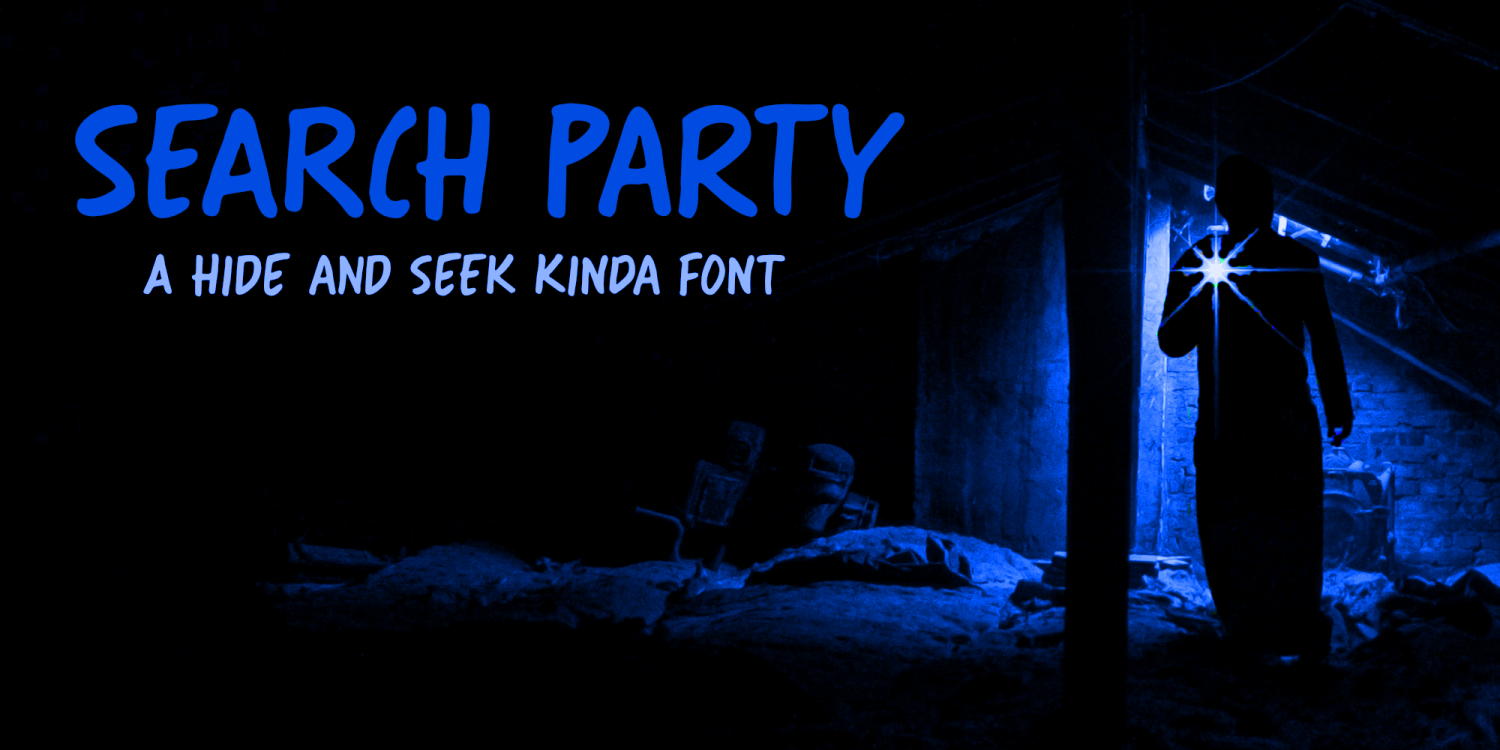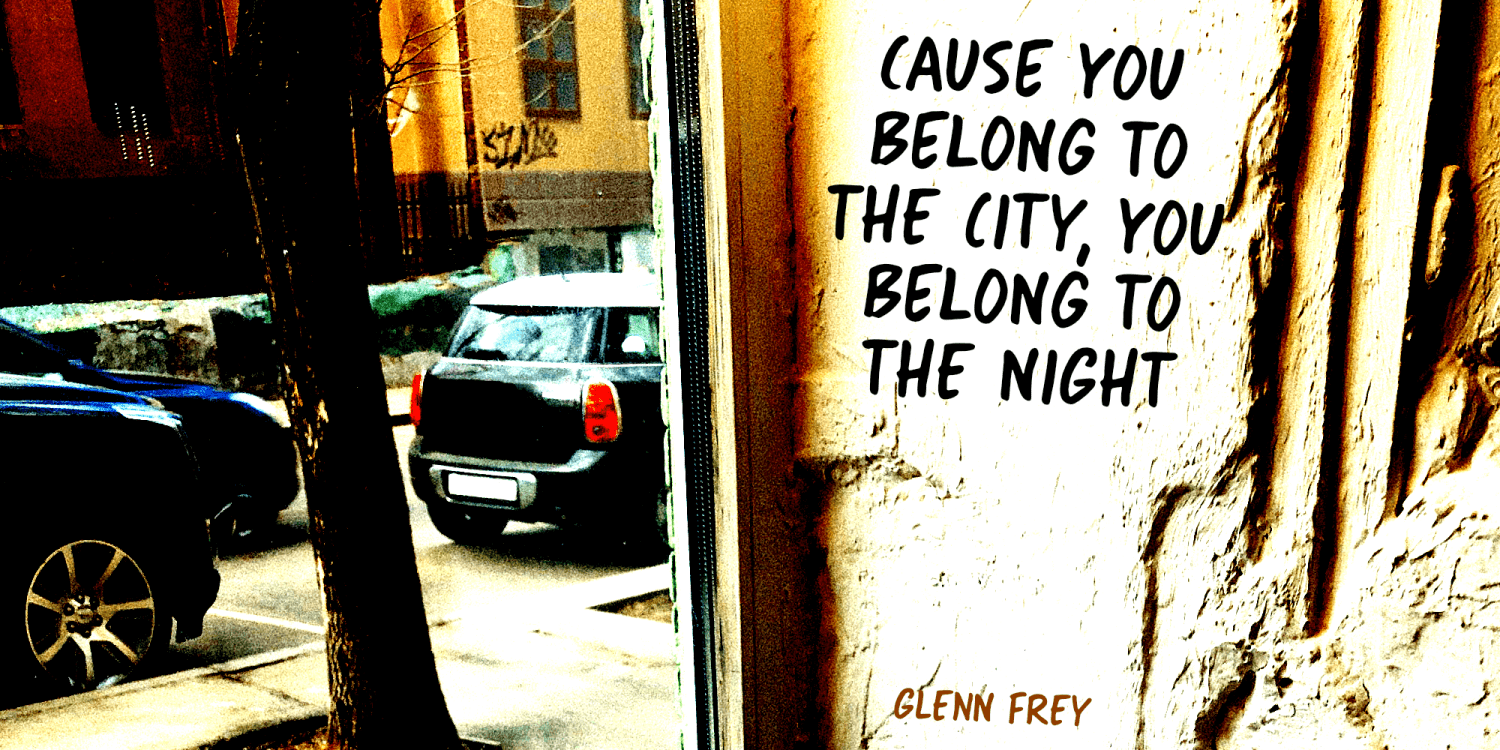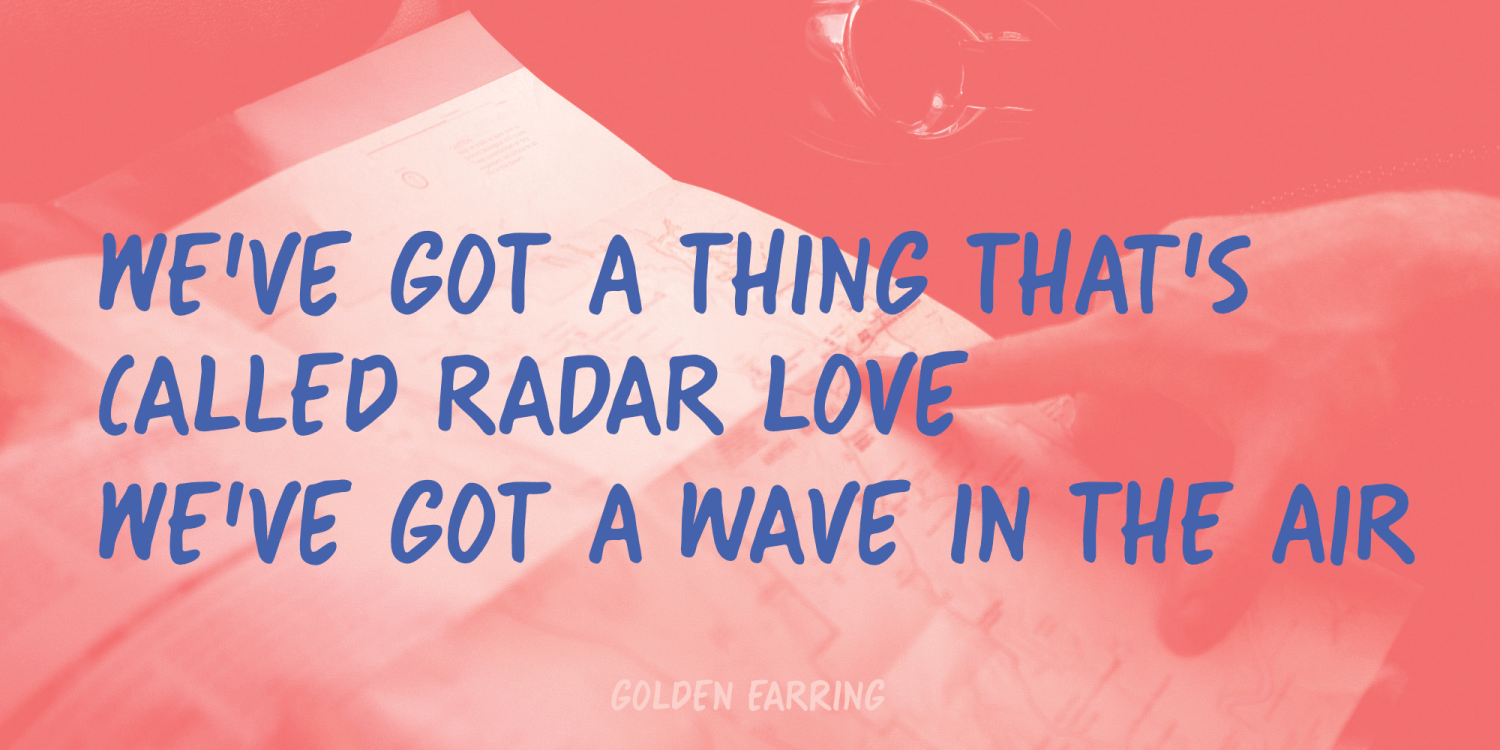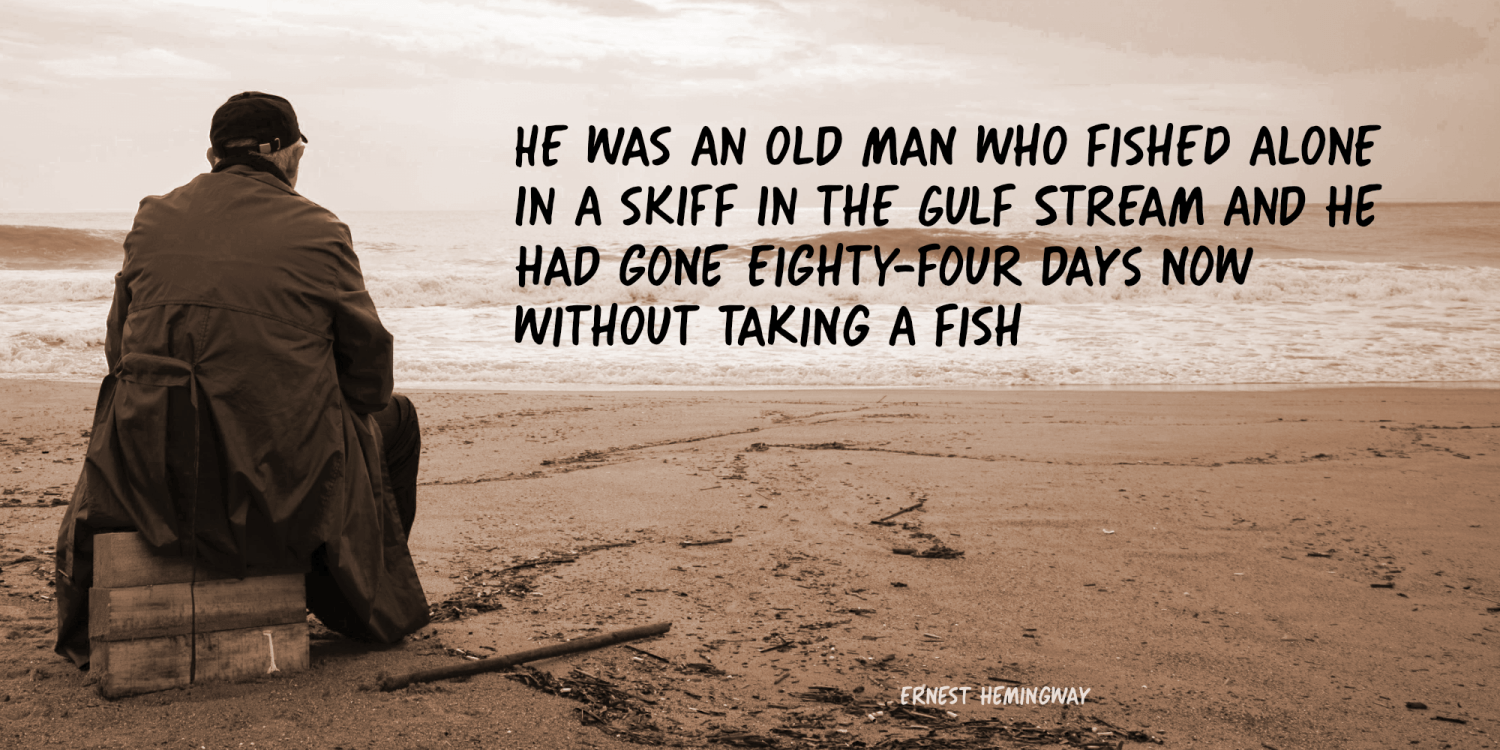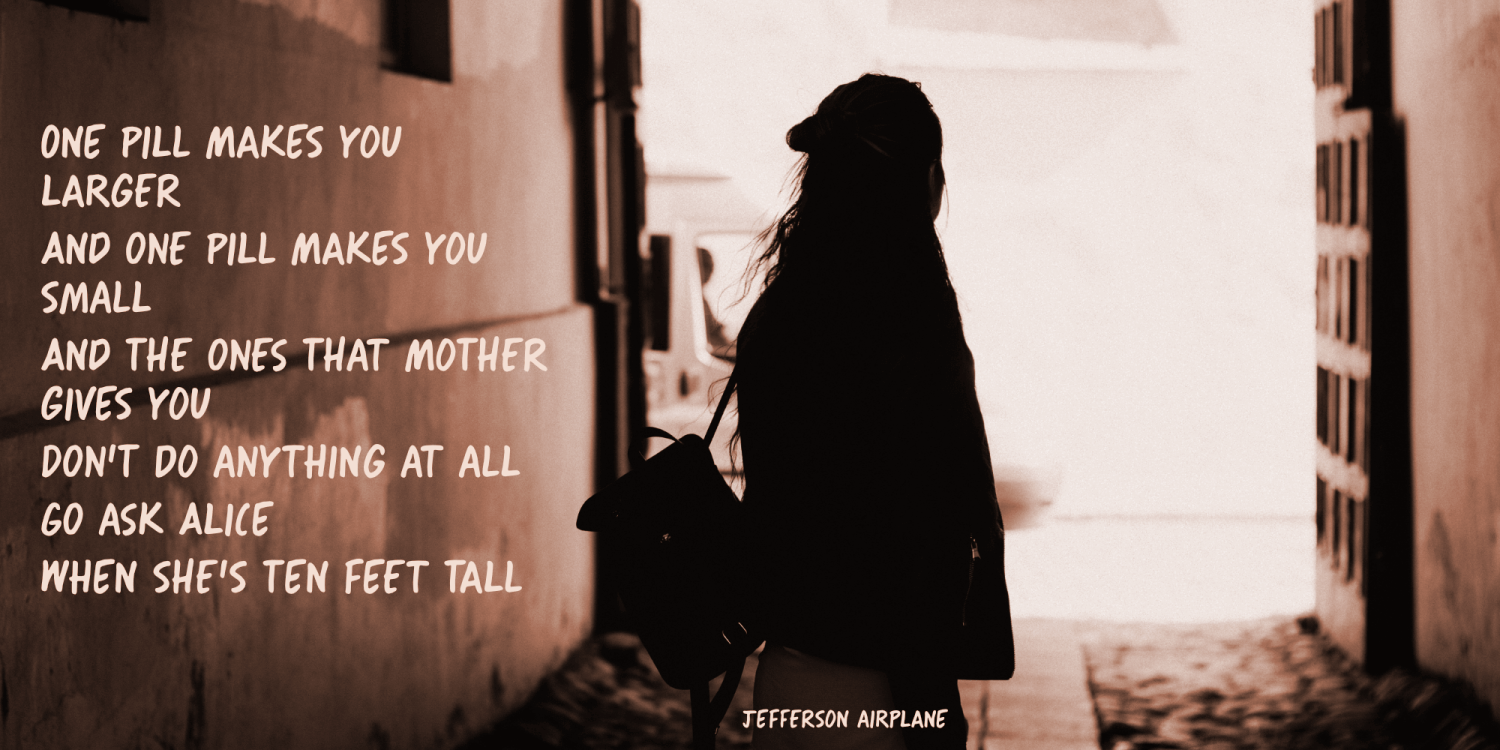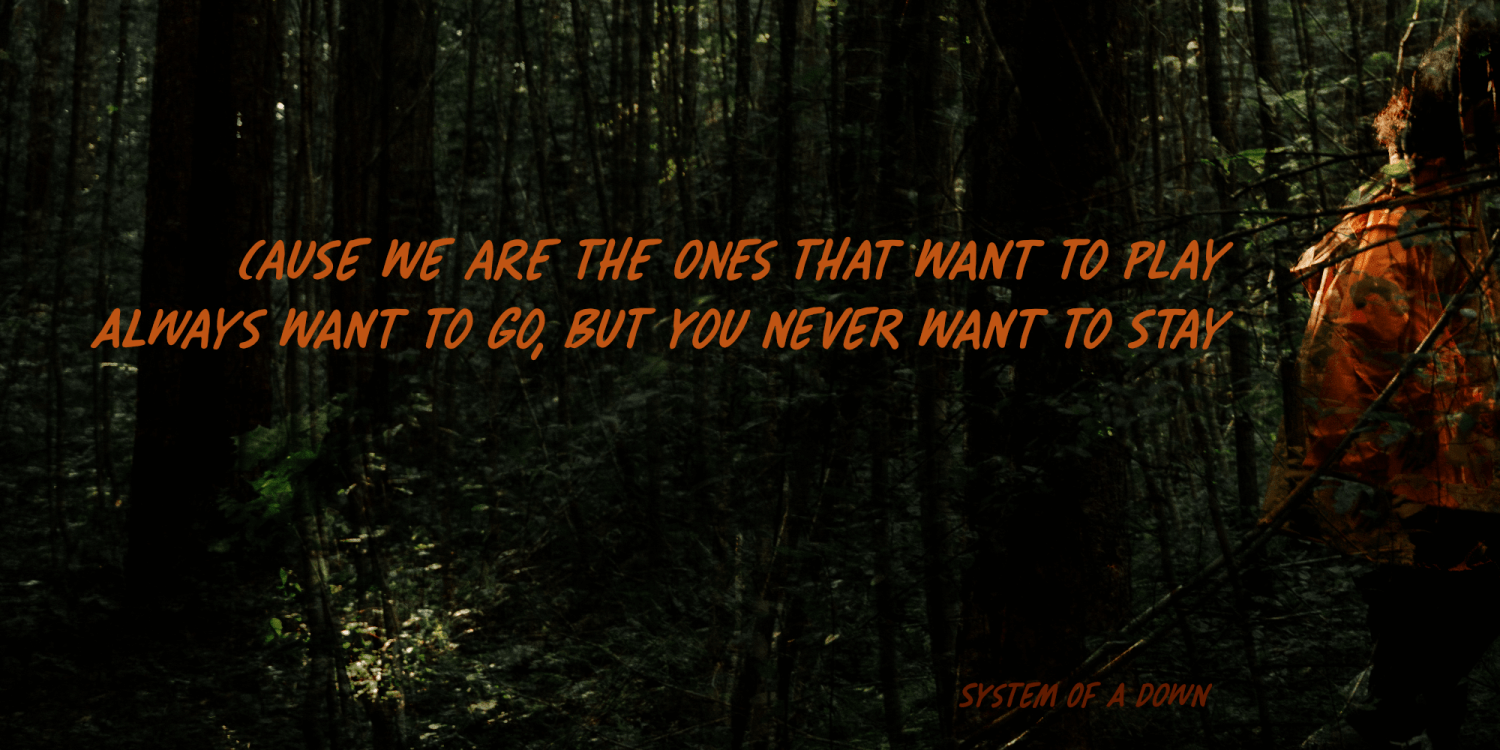
Search Party
Search Party is a handwritten font, made with a Sharpie pen. It is a little wild, a little uneven, but legible and perfectly suited to be used in your designs.
Comes with extensive language support and a set of alternates for the lower case letters.